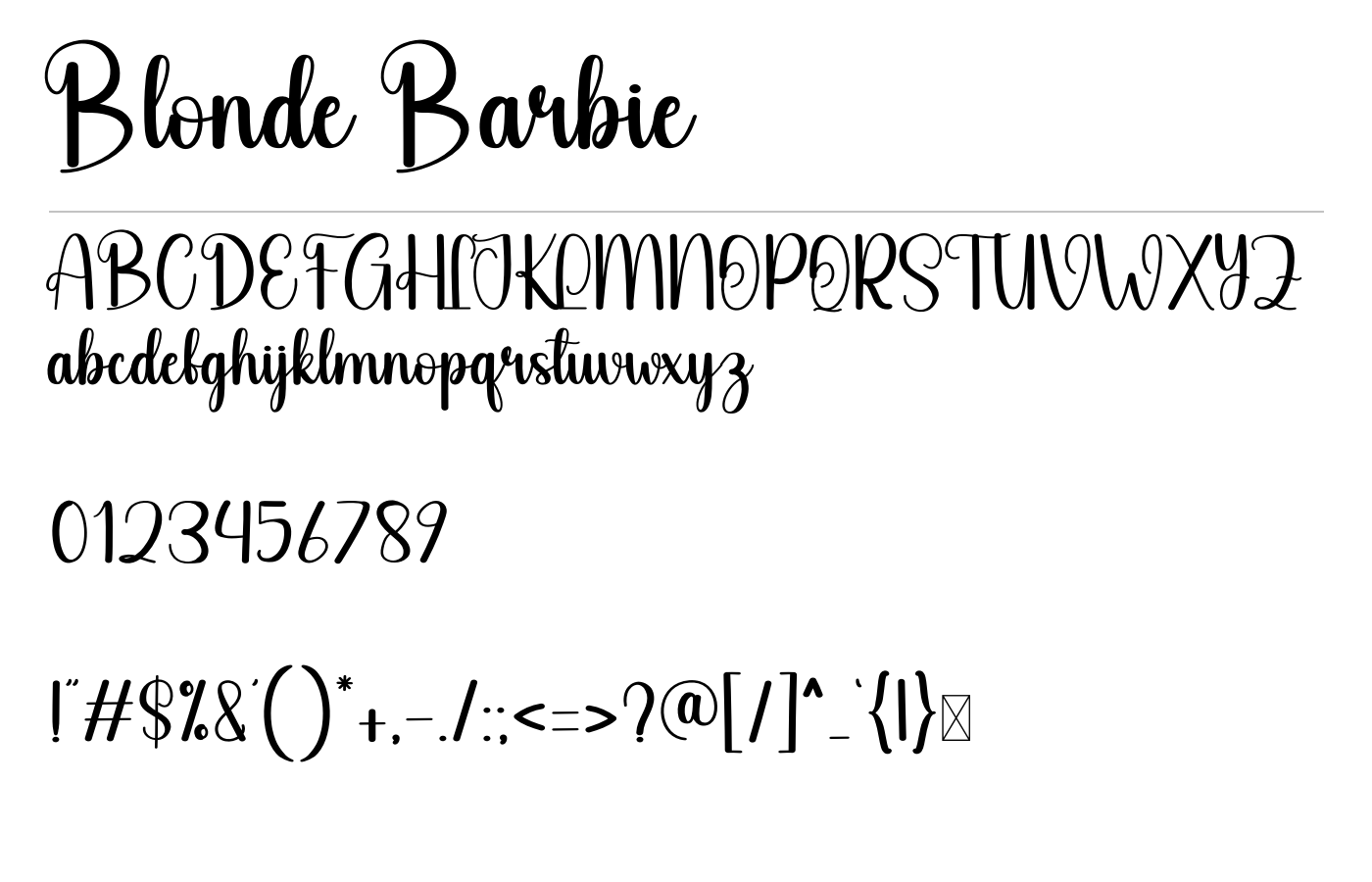
Blonde Barbie is a playful, handwritten script font with a lively and feminine charm. Its smooth, flowing strokes combined with whimsical swirls create a warm and inviting feel, perfect for designs that want to convey creativity, elegance, and fun. This font works beautifully for branding, invitations, and any project looking to add a personal, stylish touch.
Blonde Barbie Font